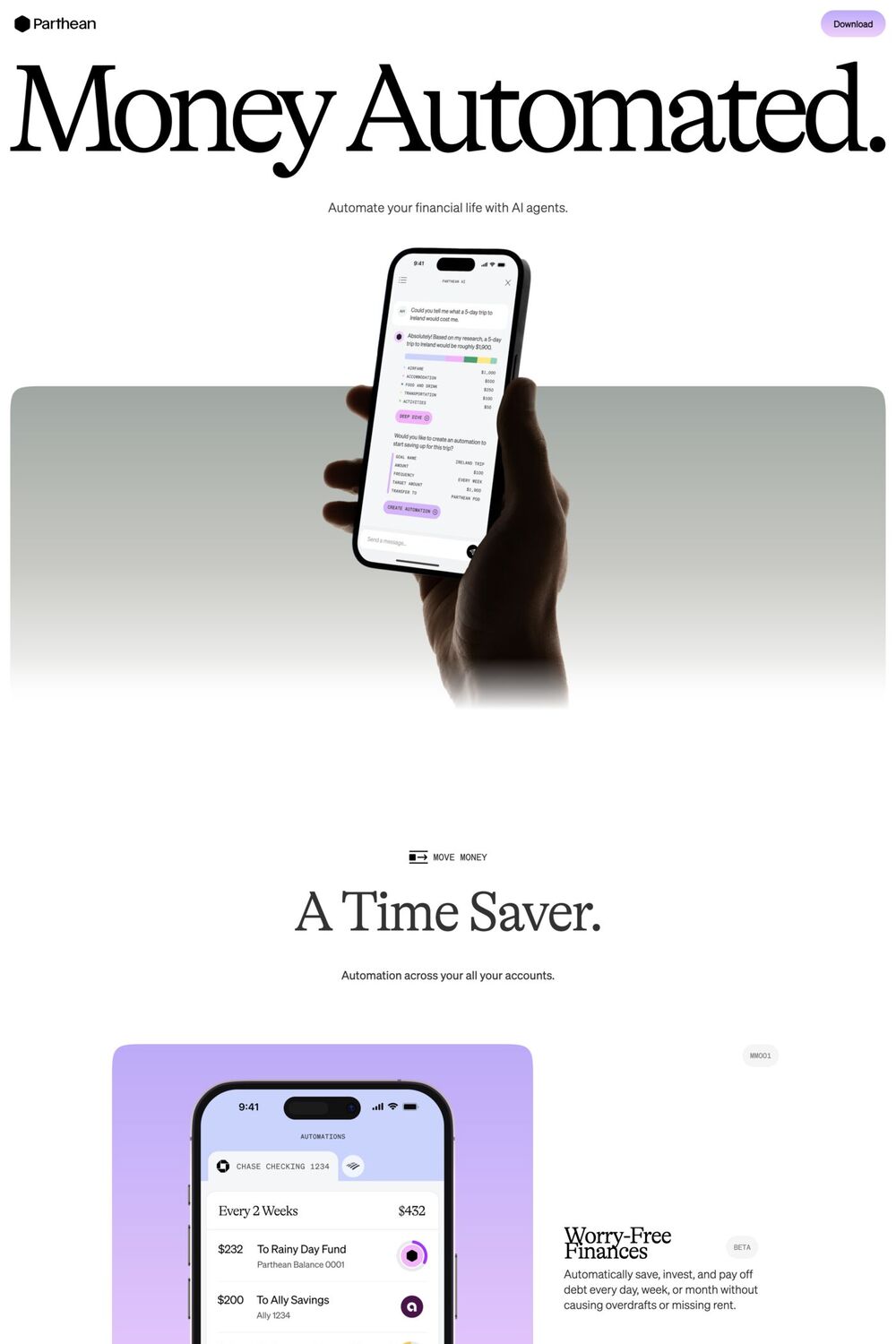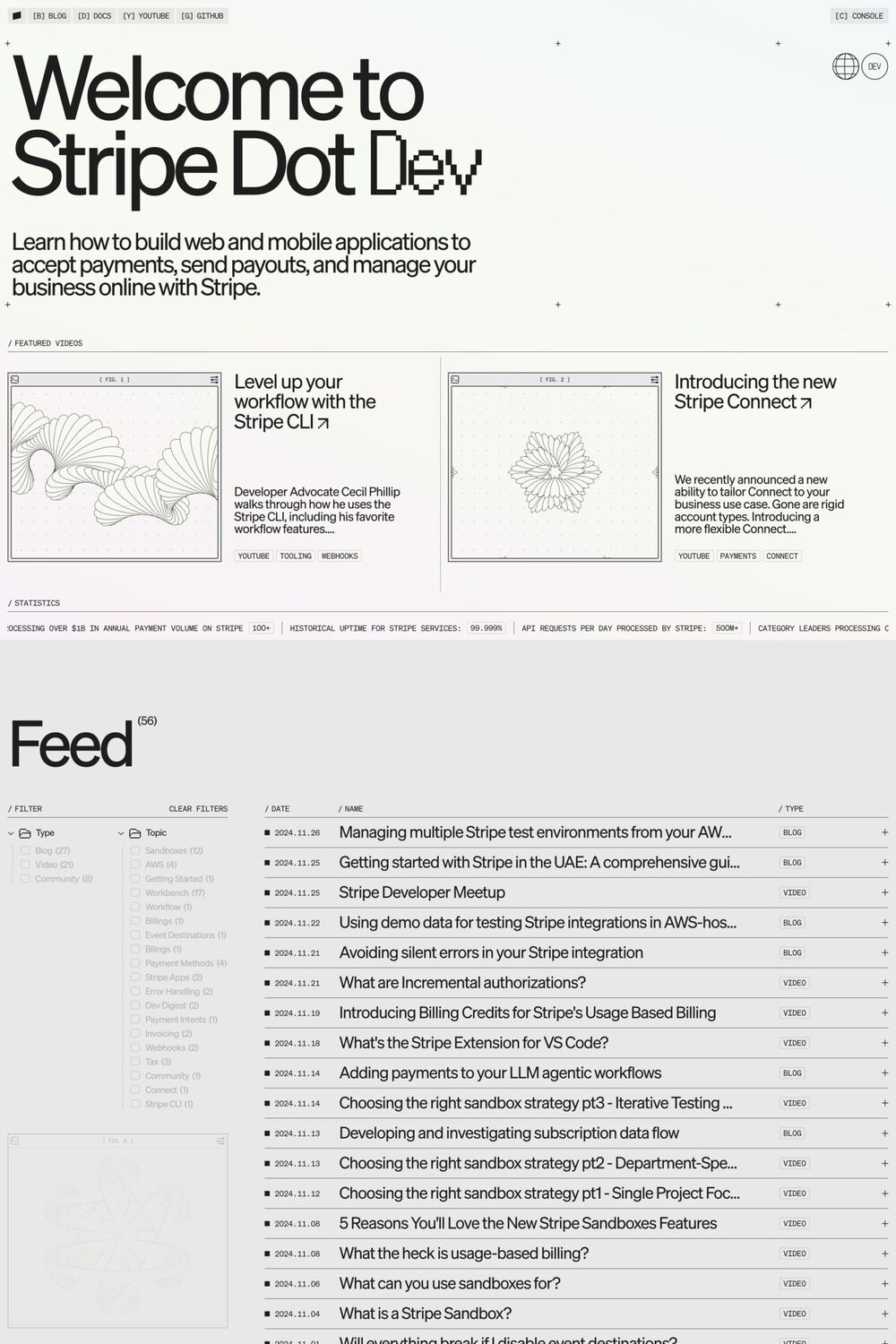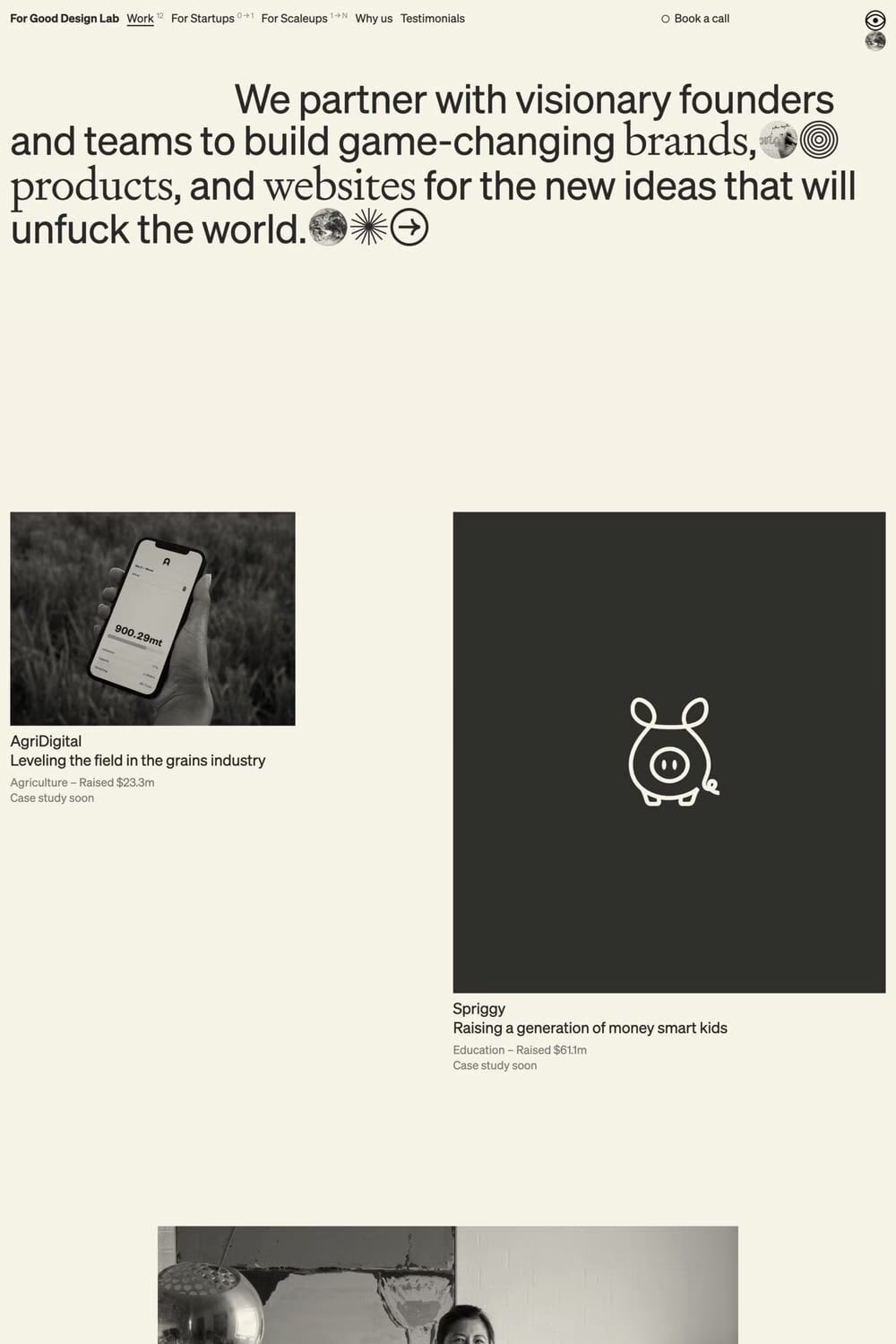
Söhne Mono is a monospace typeface from Klim Type Foundry.
Söhne Mono is Klim Type Foundry’s monospaced adaptation of Söhne, a typeface channelling the analogue materiality of Akzidenz-Grotesk as seen in the NYC Subway’s iconic Unimark signage. The mono version adds subtle serifs to narrow characters like i, j, and l to preserve Söhne’s characteristically tight spacing within monospace constraints.
A1 features 5 websites using Söhne Mono, including Central, Stripe Dev, and For Good Design Lab. They lean towards Minimal, Serif, and Dark design styles, and they’re most often built with Webflow, Framer, and Next.js.